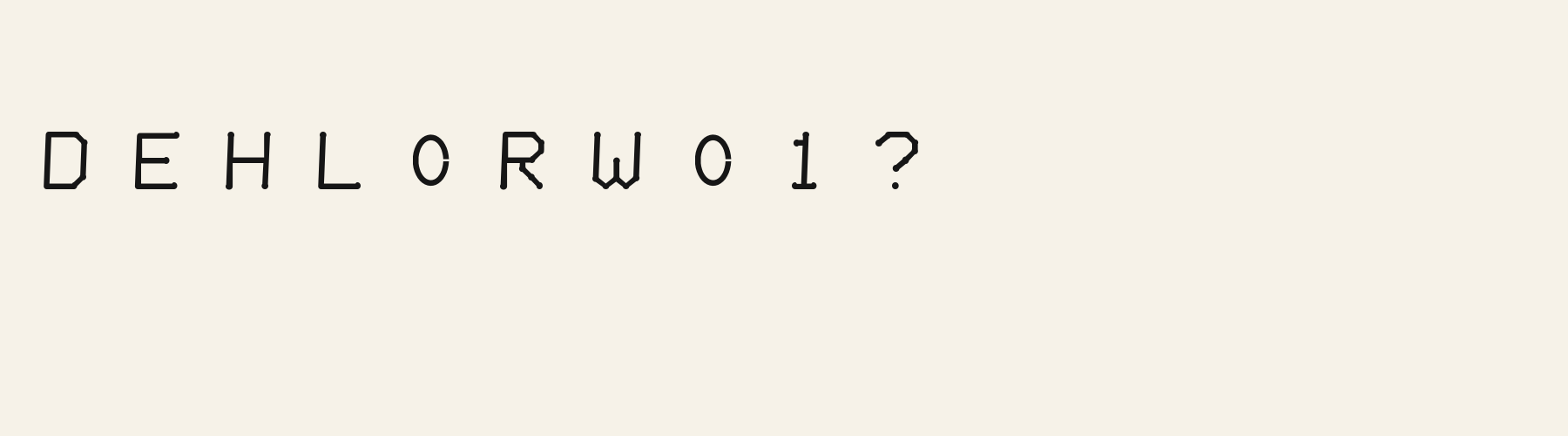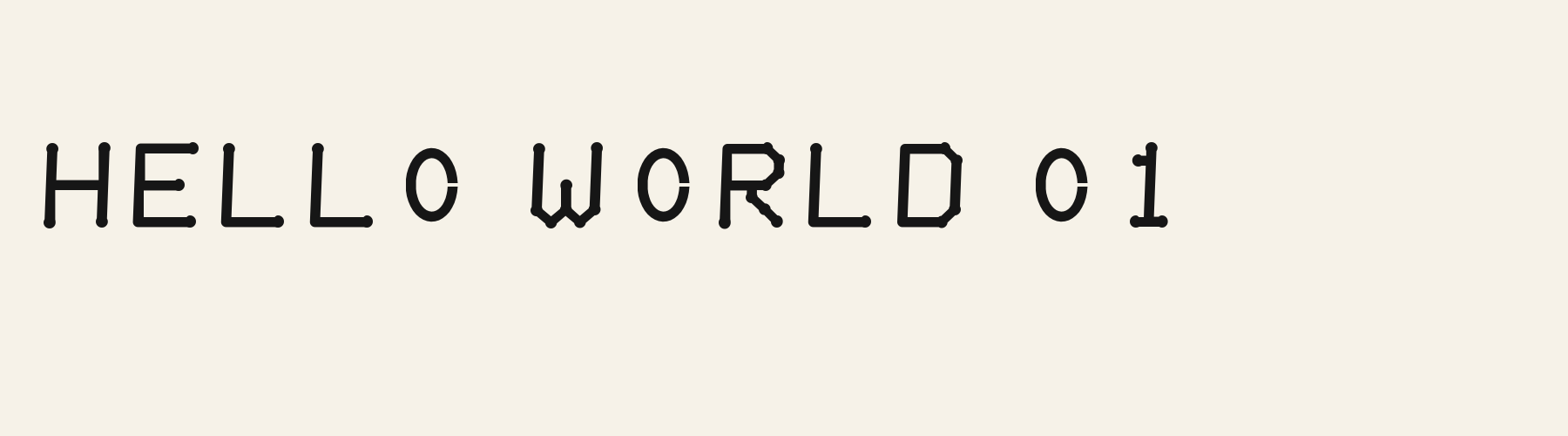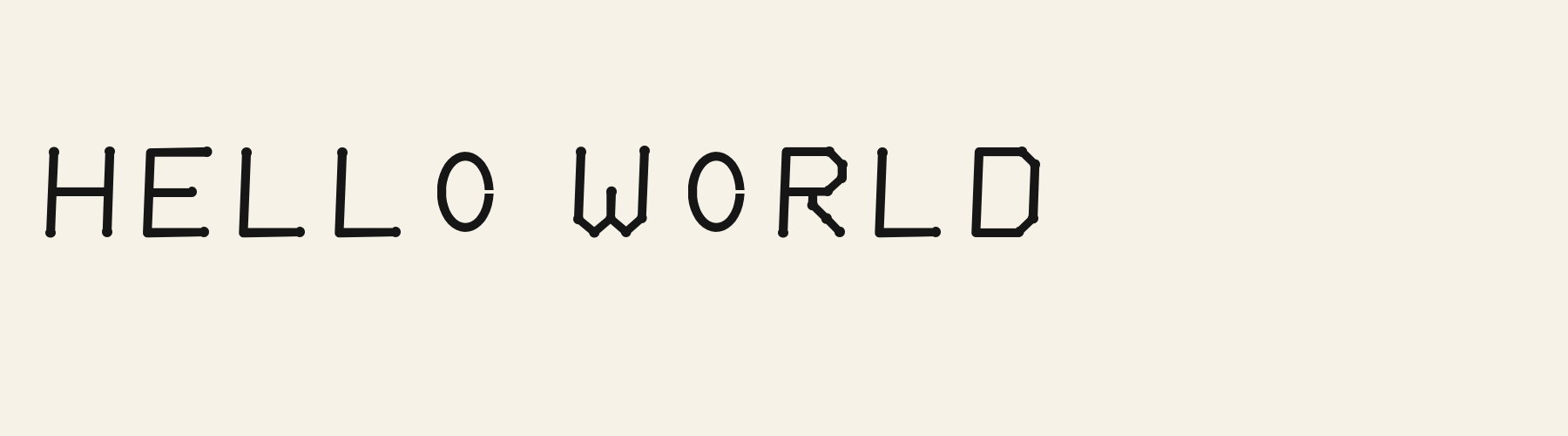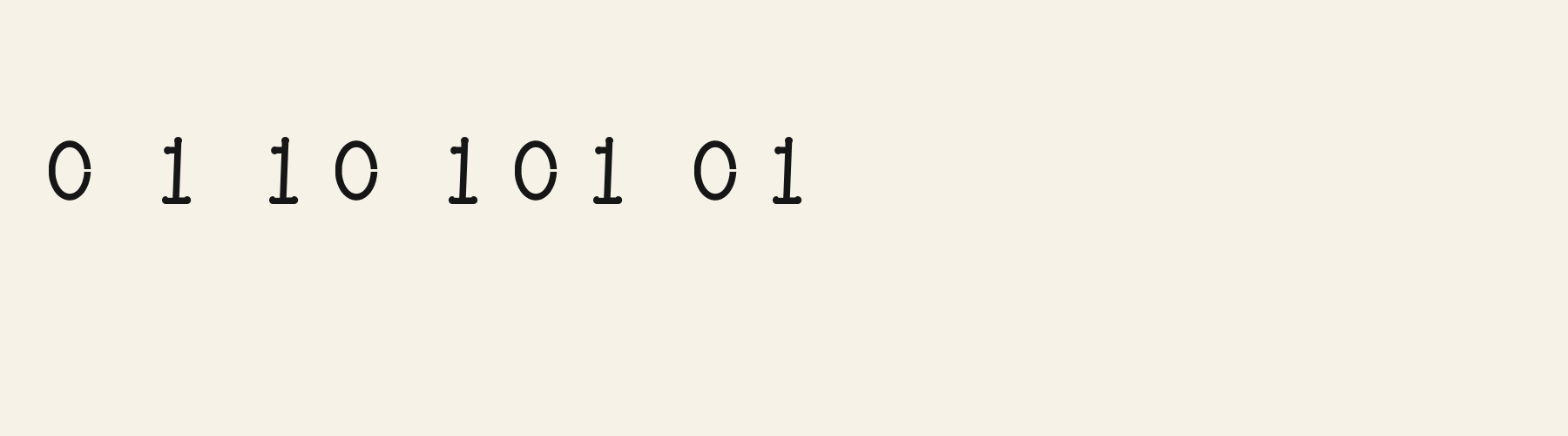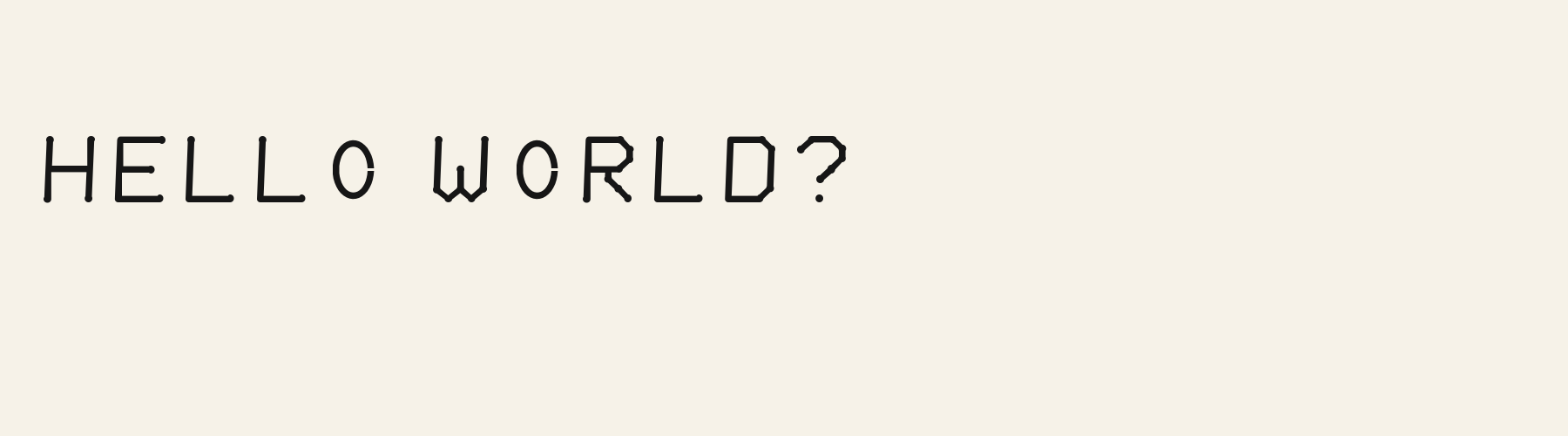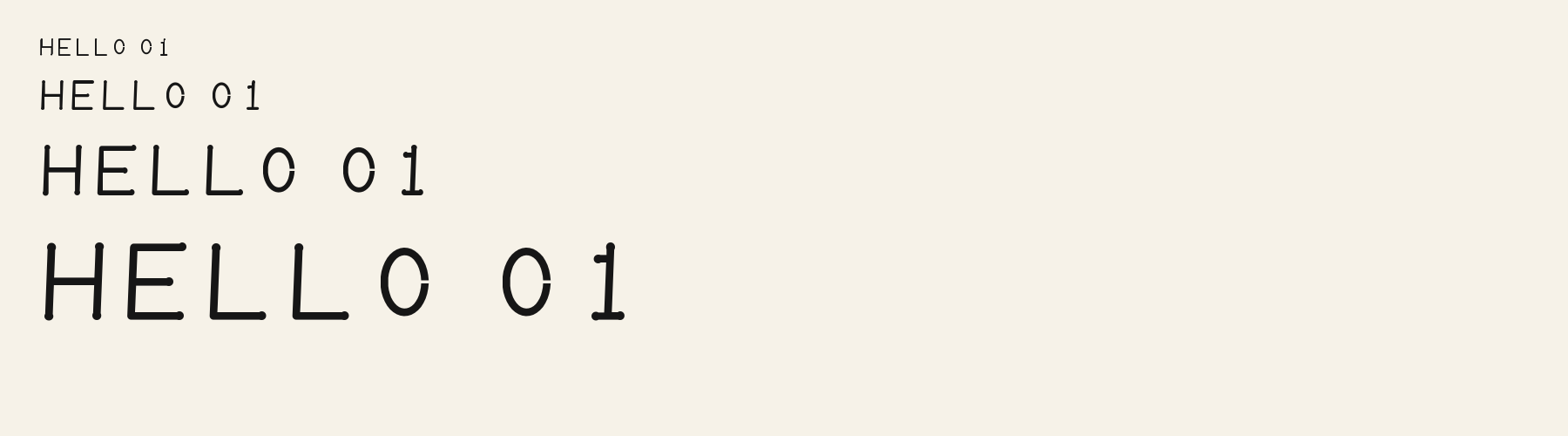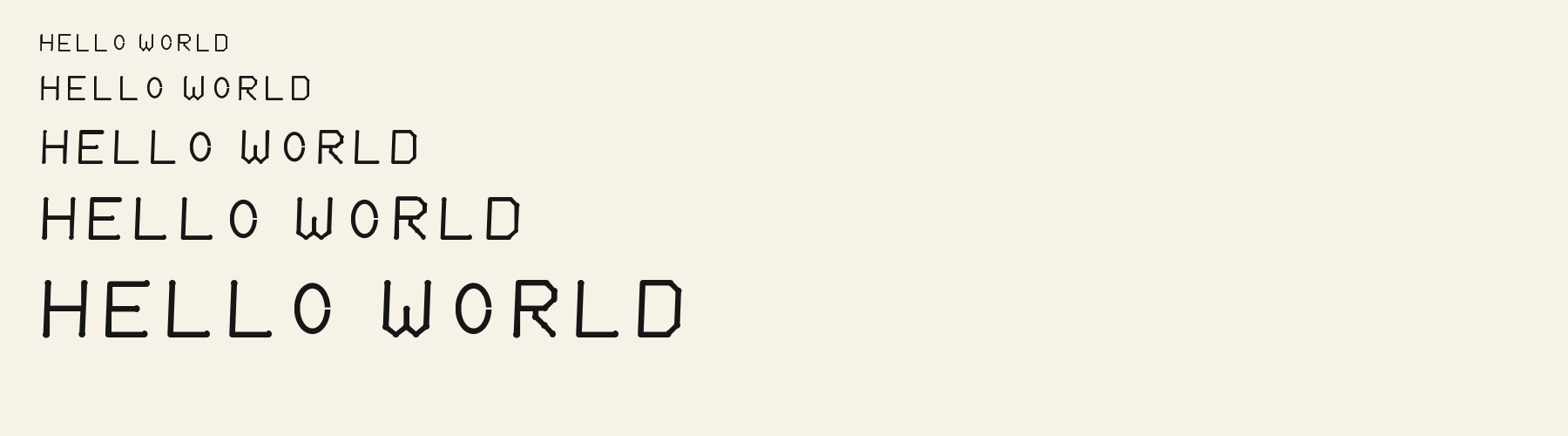
Rounded Humanist Terminal Notched Oval Display Font
Sans serif · 2 styles · 159 characters · Version 0.3.1 · Published September 23, 2026
Rounded Humanist Terminal mixes spare strokes with small irregularities that give its capitals a relaxed, drawn quality.
Notched Oval Display Letterforms
Rounded Humanist Terminal mixes spare strokes with small irregularities that give its capitals a relaxed, drawn quality. The O is a narrow oval with a slit through its right side, leaving its inner white space open to the background. The R pairs a bowl with clipped corners and a descending leg whose diagonal carries small steps and bumps. The W drops into pointed valleys around a short central upright. Slightly leaning stems and enlarged, rounded endpoints soften the angular joins. Generous gaps between letters give the sample words an airy rhythm, suggesting a friendly voice for short display text.
Check repeated Latin O forms for visible right-side openings, and inspect R legs and W joins in your actual words. Try line breaks before tightening the generous spacing. Review accented Latin separately; evaluate any other script with its own supported specimens.
Try this face for short headings, with a compact, upright sans for supporting text and labels. Its leaning stems, open oval O and irregular R leg provide enough character that a steadier companion could keep longer information calm.
Compare smaller and larger previews to inspect whether the opening in O and the small steps along R remain distinct. The larger specimen makes these details easier to examine; check their effect in your intended layout.
In this uppercase phrase, Rounded Humanist Terminal combines gently leaning stems with narrow oval O forms opened through the right stroke. The slightly irregular R leg gives the otherwise spare lettering a more hand-drawn rhythm.
Geo Sans Round sets the same uppercase phrase with upright stems and closed, octagonal O forms. Its flatter contours and cleaner diagonal R leg create a more regular geometric rhythm, while rounded stroke ends soften the construction.
Website headline. Rounded stroke ends and gently leaning stems give a short welcome headline an informal, approachable voice. HELLO LITTLE ONE
Card or invitation. The open oval O and soft endpoints bring a playful detail to a simple greeting card. WONDER WORLD
Poster. The pointed W valleys and stepped R legs give a short poster title distinctive details to explore at larger scale.
Its x-height is 70.9% of the cap height, near the 71.4% typical of sans serif fonts in the library, lower than 20 of the 34 other sans serif fonts. Ascenders on b, d, h, k and l line up with the capitals (98.9% of their height), and descenders on g, j, p, q and y drop 28.9% of the cap height below the baseline, deeper than 19 of the 34 other sans serif fonts. It sets wide: an average lowercase letter, spacing included, is 104.3% as wide as the capitals are tall (an average capital, 104.9%), 33.2% more than the median for sans serif fonts, so the same words take a longer line. The o is close to a circle, 1.05 times as wide as it is tall, and M and W are the widest capitals, at 1.12 times the width of H. The O stops 6.3% of the cap height short of H and stands 6.3% above the baseline.
The letters lean about 3° to the right, where most sans serif fonts in the library stand upright. Vertical stems measure 9.7% of the cap height, lighter than 16 of the 28 other sans serif fonts. Ink covers 18.7% of each lowercase letter's box (its advance width by the cap height), lighter than 26 of the 34 other sans serif fonts. Rounded Humanist Terminal comes in Regular and Bold; Bold puts down 23% more ink than Regular.
Its 159 characters include 116 Latin letters, plus 43 figures, punctuation marks and symbols; 64 of the Latin letters are accented or special forms beyond A to Z. The word space measures 50.7% of the cap height, and the blank space either side of a lowercase letter takes up 33.4% of its width. The font carries no kerning, so spacing comes from each letter’s own side bearings. All ten figures share one width, so columns of numbers line up.
- What fonts pair well with Rounded Humanist Terminal?
- Faceted Bowl Roman (serif), Parlor Serif (serif) and Script Signature Thin (script) are drawn on a different letter structure, so Rounded Humanist Terminal can carry the headings while one of them sets the text. Each has its own page with a type tester for trying the pair.
- Which fonts are similar to Rounded Humanist Terminal?
- In the same sans serif style: Terrace Join Sans (heavier strokes, 26% narrower); Pivot Sans (heavier strokes, 36% narrower); Geo Octagon Counter (upright, 11% wider).